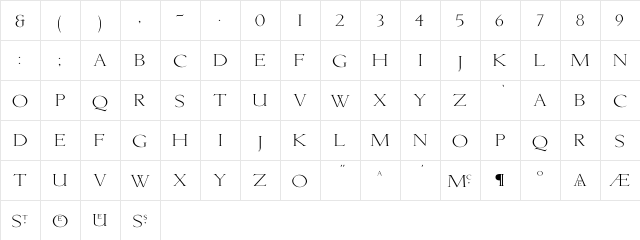
Lichtner Wd Regular
Design Context for Lichtner Wd Typeface
Lichtner Wd is a composed and adaptable typeface that performs quietly and consistently across a wide range of design contexts.